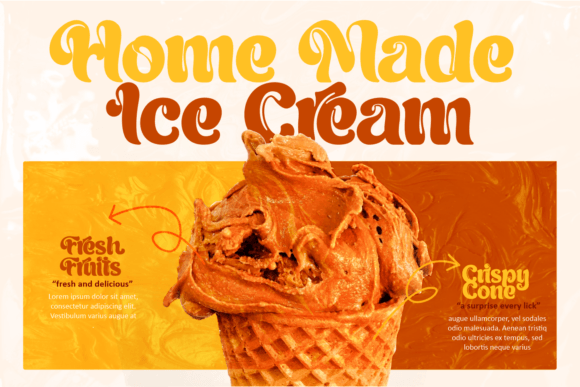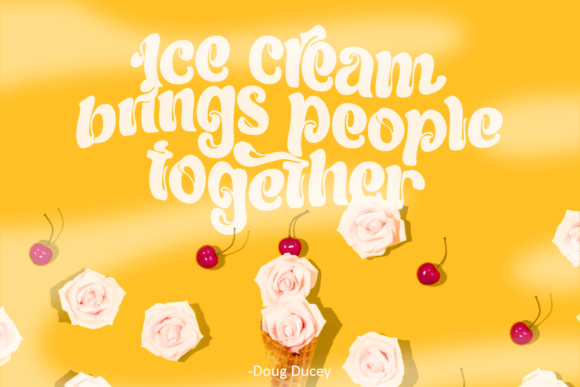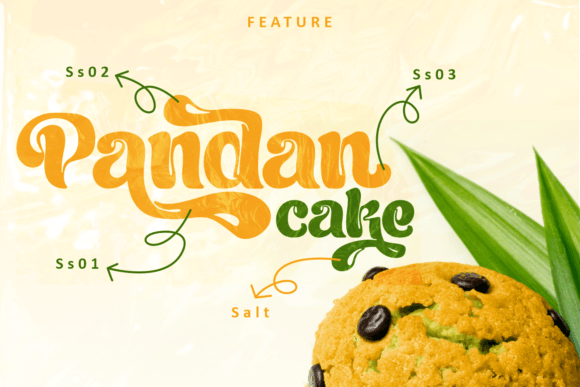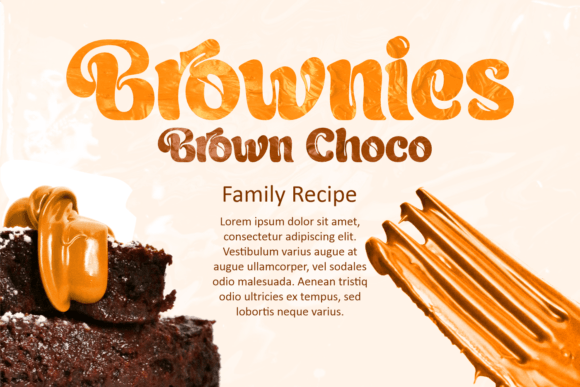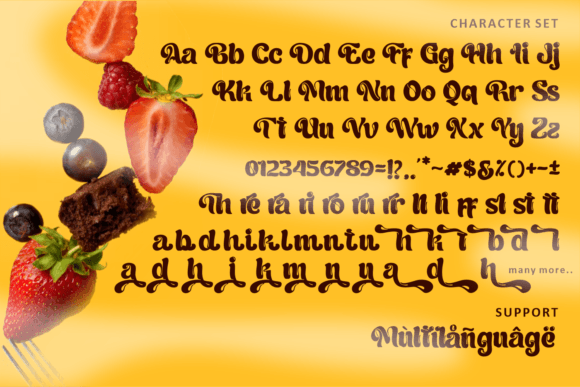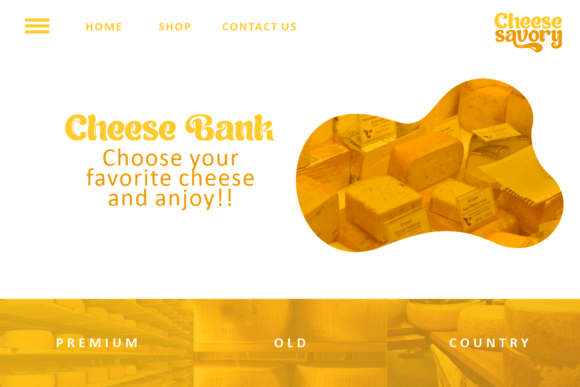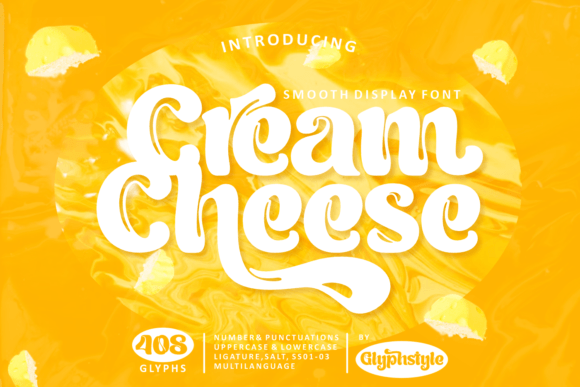
Cream Cheese Font: The Delicious Accent for Your Designs
Are you looking for a font that can add a touch of elegance and sophistication to your designs? Look no further than the Cream Cheese Font! This bold display font is perfect for restaurant menus, social media posts, logos, product packaging, and anything that needs a delicious accent. In this article, we’ll dive into the features and benefits of the Cream Cheese Font and explore how it can elevate your designs.
What is Cream Cheese Font?
Cream Cheese Font is a modern display font that boasts smooth, luscious curves. Its letters are designed to resemble melted cream, giving it a unique and eye-catching appearance. The font is perfect for designers and crafters who want to add a touch of whimsy and playfulness to their designs. Whether you’re creating a logo, brochure, or social media post, Cream Cheese Font is sure to make your design stand out.
Key Features of Cream Cheese Font
- Smooth and Luscious Curves: Cream Cheese Font features smooth, flowing curves that give it a luxurious and elegant appearance.
- Melted Cream Design: The font’s letters are designed to look like melted cream, adding a touch of whimsy and playfulness to your designs.
- PUA Encoded: Cream Cheese Font is PUA encoded, which means you can access all of the glyphs and swashes with ease.
- Bold Display Font: This font is perfect for headlines, titles, and displays, making it ideal for restaurant menus, social media posts, and product packaging.
Benefits of Using Cream Cheese Font
Cream Cheese Font offers a range of benefits for designers and crafters. Here are just a few:
- Adds a Touch of Elegance: Cream Cheese Font adds a touch of sophistication and elegance to your designs, making it perfect for high-end brands and luxury products.
- Versatile: This font is versatile and can be used for a range of design projects, from restaurant menus to social media posts.
- Easy to Use: Cream Cheese Font is PUA encoded, making it easy to access all of the glyphs and swashes.
- Unique and Eye-Catching: The font’s unique design makes it stand out from other fonts, ensuring your design gets noticed.
Use Cases for Cream Cheese Font
Cream Cheese Font is perfect for a range of design projects, including:
- Restaurant Menus: Add a touch of elegance to your restaurant menu with Cream Cheese Font.
- Social Media Posts: Make your social media posts stand out with this unique and eye-catching font.
- Logos: Create a luxurious and sophisticated logo with Cream Cheese Font.
- Product Packaging: Add a touch of whimsy and playfulness to your product packaging with this font.
Tips for Using Cream Cheese Font
Here are a few tips for using Cream Cheese Font:
- Use it as a Display Font: Cream Cheese Font is perfect for headlines and titles, so use it as a display font to make your design stand out.
- Pair it with a Simple Font: Pair Cream Cheese Font with a simple font to create contrast and make your design more visually appealing.
- Experiment with Colors: Experiment with different colors to find the perfect combination that makes your design pop.
Cream Cheese Font is a unique and eye-catching font that’s perfect for designers and crafters who want to add a touch of elegance and sophistication to their designs. With its smooth, luscious curves and melted cream design, this font is sure to make your design stand out. Whether you’re creating a restaurant menu, social media post, logo, or product packaging, Cream Cheese Font is the perfect choice. So why wait? Try Cream Cheese Font today and take your designs to the next level!